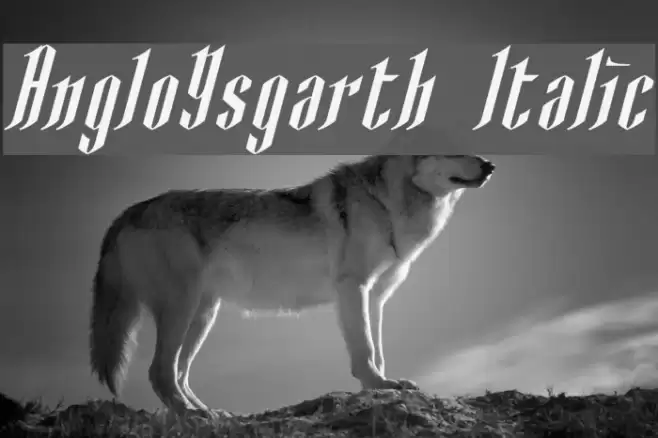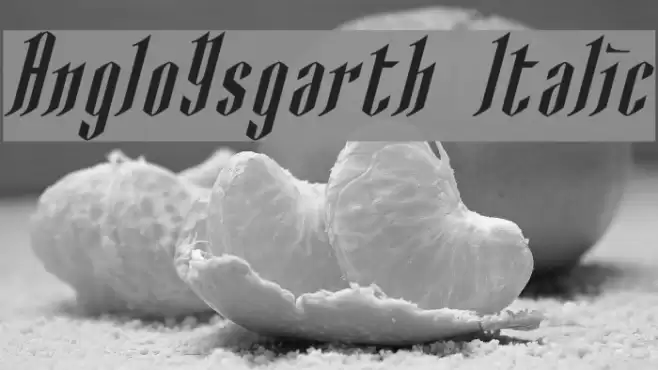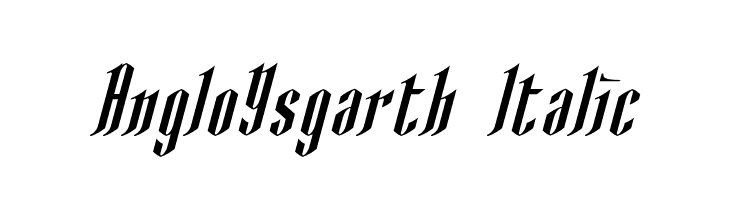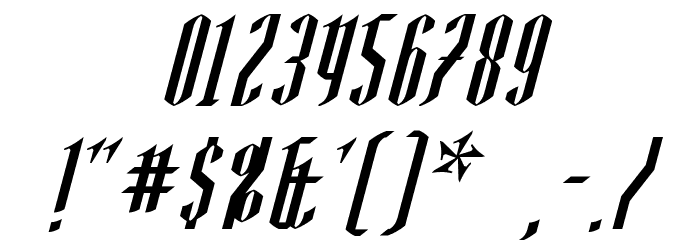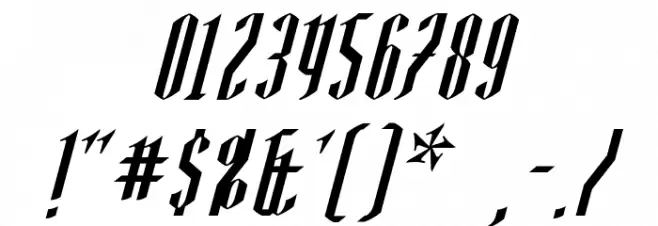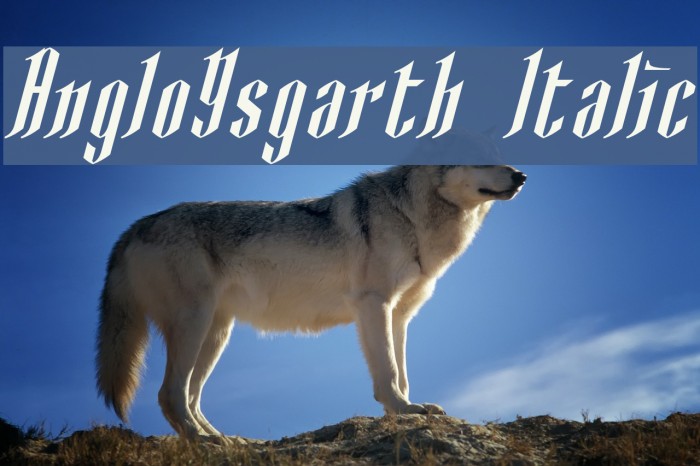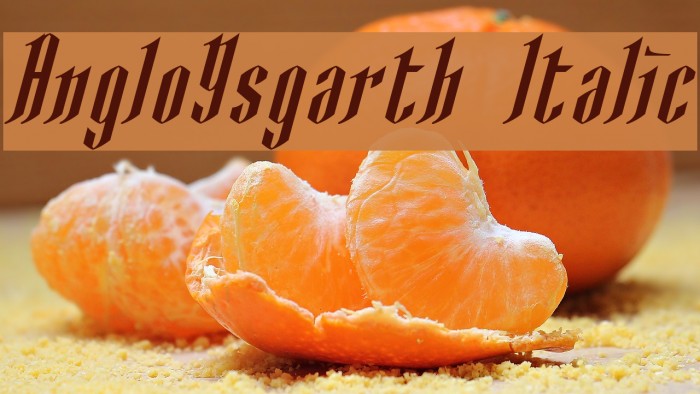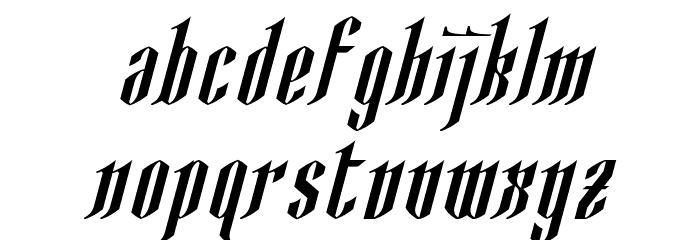
AngloYsgarth Italic Font
AngloYsgarth Italic Description
This font features a bold, italicized style with sharp, angular lines and a distinct Gothic influence. The characters are elongated and have a dramatic flair, reminiscent of medieval script. The uppercase letters are particularly striking, with exaggerated serifs and a strong vertical emphasis. The lowercase letters maintain the same angular quality, creating a cohesive look throughout. Numbers and special characters are designed with the same attention to detail, ensuring consistency across all glyphs. This font's unique style makes it stand out, offering a sense of elegance and historical charm.
A bold, italicized Gothic-style font with sharp, angular lines from Uncategorized fonts.
- Proposed Projects: Ideal for projects requiring a medieval or historical theme, such as book covers, posters, or branding for themed events.
- Character Spacing: Tight
- Overall Style: Vintage